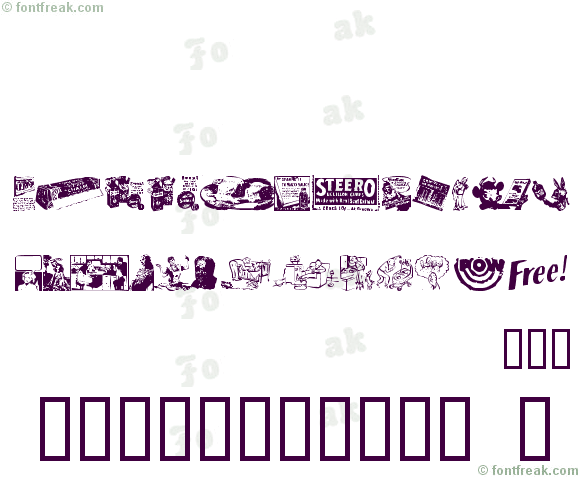
Old Time Ad Dings One
Old Time Ad Dings One — Character Map
About Old Time Ad Dings 1
Old Time Ad Dings 1 by Omega Font Labs is a distinctive collection of decorative dingbats that embodies the charm of vintage advertisements. As a freeware font, it offers a delightful array of icons and symbols reminiscent of the early 20th century, making it an excellent choice for creative projects that seek to evoke nostalgia. The font features a varied stroke weight, lending itself to a playful yet authoritative presence that can enhance any design. Its character spacing is thoughtfully balanced, ensuring clarity while maintaining a whimsical aesthetic. The decorative elements are rich and diverse, including everything from ornate borders to playful illustrations, each one meticulously crafted to add character to any composition.
This font is particularly well-suited for a range of creative applications. It can bring life to wedding invitations with its charming flourishes, making them feel special and unique. Additionally, it works wonderfully on movie posters, giving them a retro feel that can effectively capture the essence of the film. Restaurant menus can also benefit from the font's appealing visuals, making the dining experience feel both inviting and nostalgic. Graphic designers and small business owners will find it invaluable for branding efforts, while content creators can utilize it to add a distinctive flair to their projects.
Old Time Ad Dings 1 stands out due to its ability to blend functionality with artistic expression. It offers designers a treasure trove of visual elements that can transform ordinary text into captivating artwork. With its unique style and versatility, the Old Time Ad Dings 1 font free download is a must-have for anyone looking to infuse their designs with a touch of historical charm and creativity. Whether you are creating digital or print materials, this font will undoubtedly leave a lasting impression.